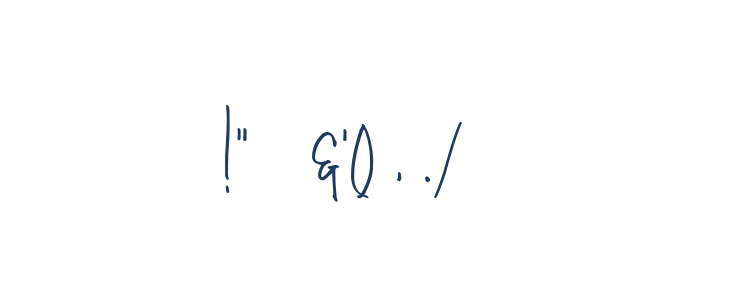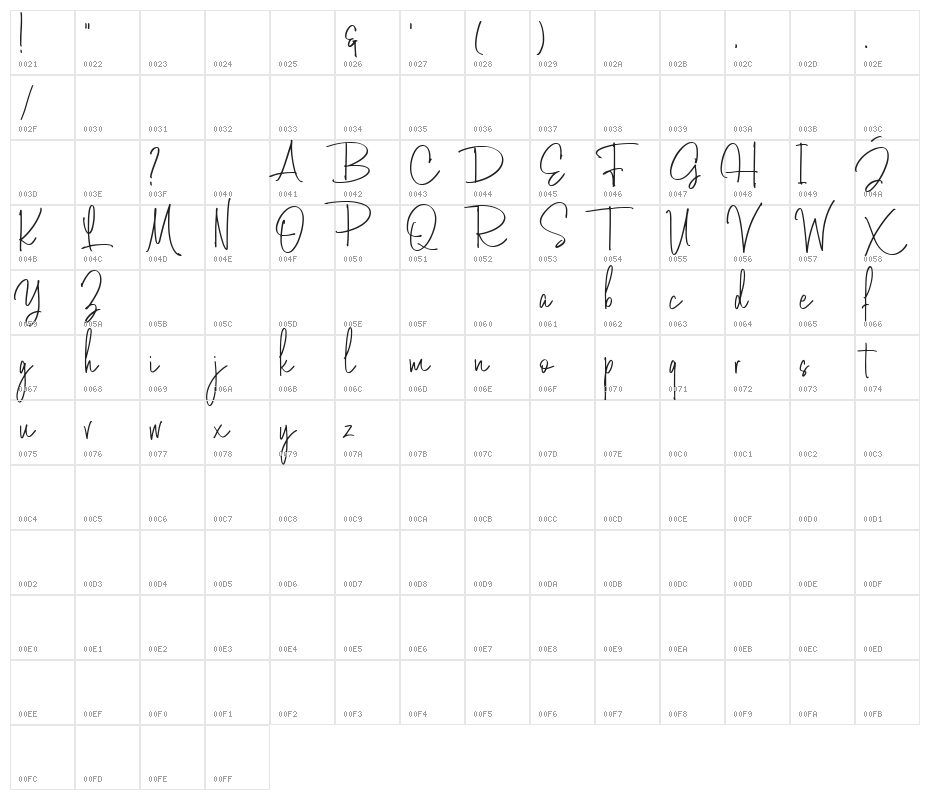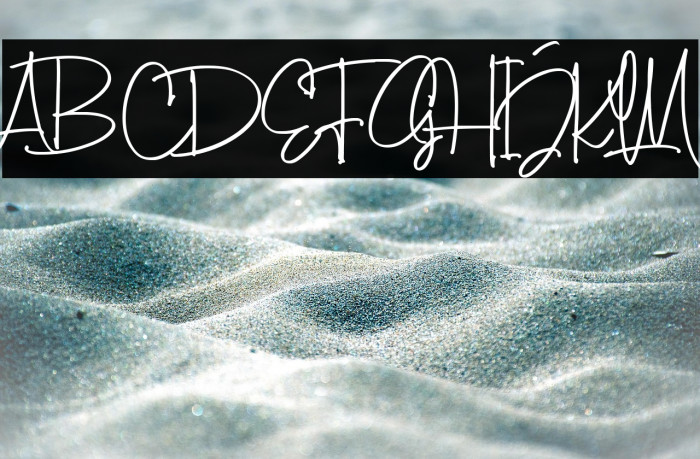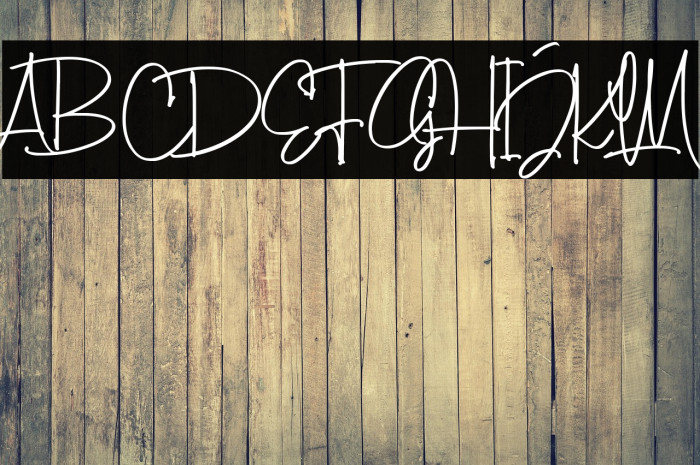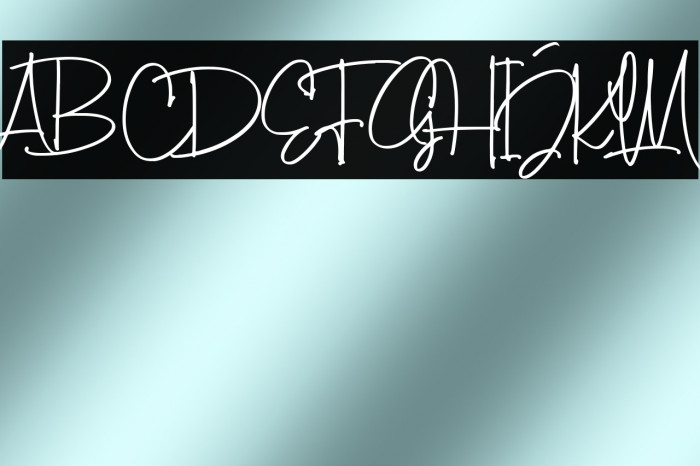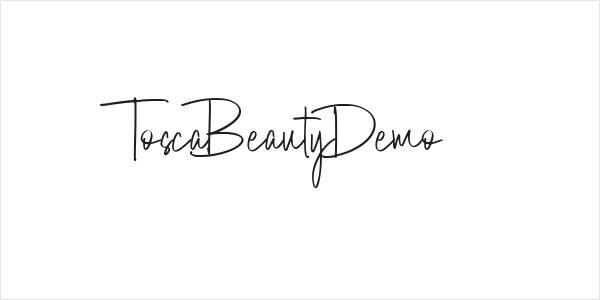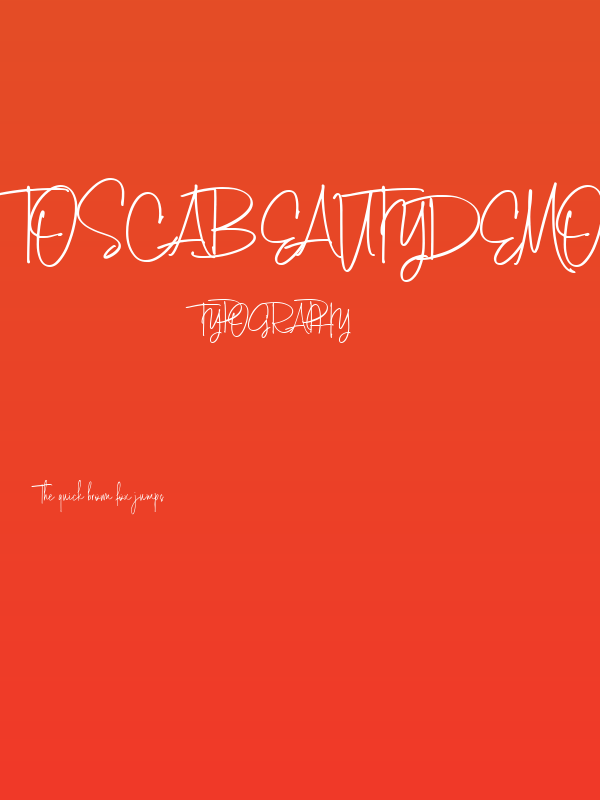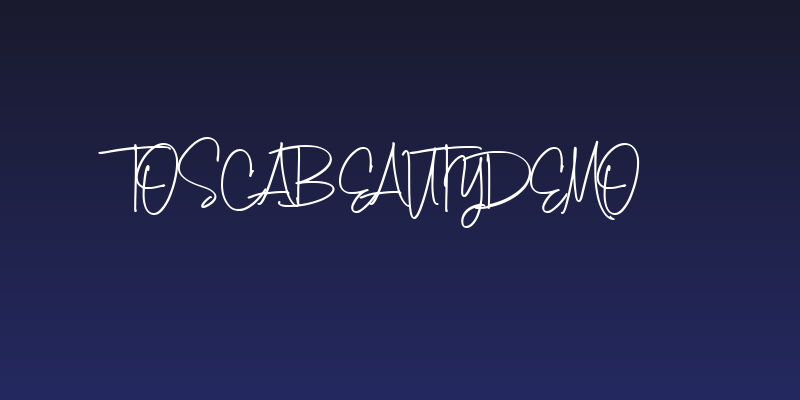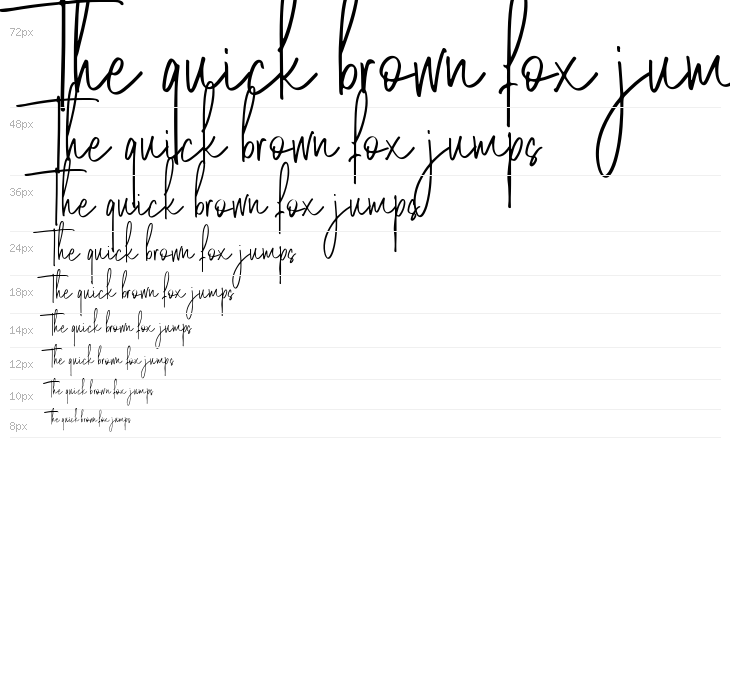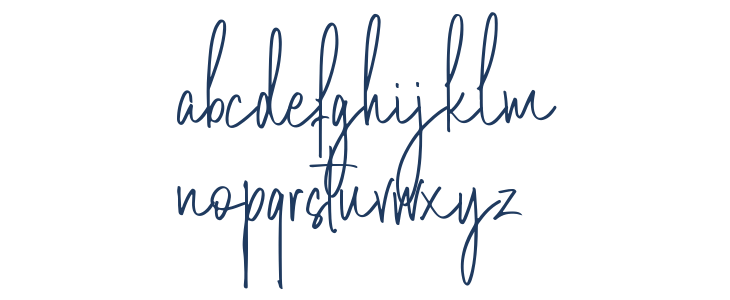
ToscaBeautyDemo Font
This font exhibits a flowing, cursive style with a handwritten appearance. The characters are elegantly connected, creating a sense of fluidity and movement. The uppercase letters are tall and slender, while the lowercase letters maintain a consistent height, enhancing readability. The strokes are smooth and slightly varied in thickness, adding a touch of sophistication. The overall design is both modern and artistic, making it suitable for creative and expressive projects. The special characters are seamlessly integrated, maintaining the font's cohesive look.